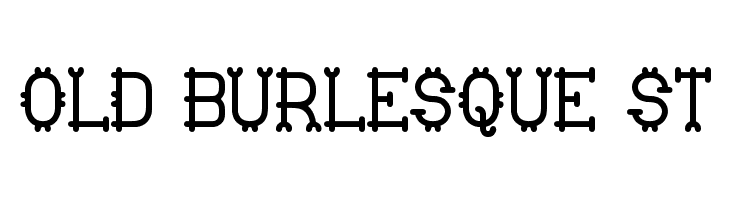
( Southype - Rodrigo Gonzalez - www.southype.com )
A decorative font with vintage burlesque flair, featuring circular embellishments on each character.